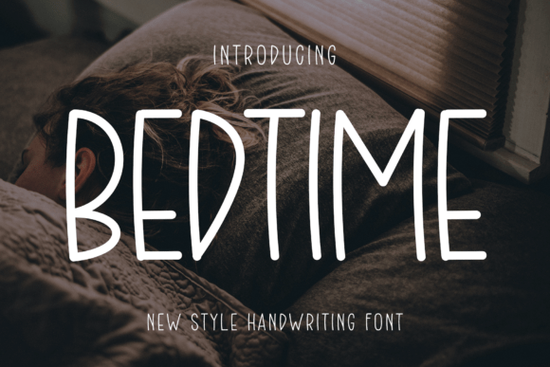
How do you choose a script font that looks elegant but remains readable across different projects? For designers and small business owners working on wedding stationery, branding, or lifestyle content, Bedtime Font offers a practical balance between sophistication and legibility. This fluid handwritten typeface brings a modern, refined look that works well for everything from luxury invitations to photography overlays.
What kind of projects work best with this font?
Bedtime Font really shines in projects where you want a refined, handcrafted feel. Think wedding invitations, save-the-date cards, thank-you notes, and other stationery items where elegance matters. It also works well for:
- Branding for boutique businesses, especially in beauty, fashion, or lifestyle niches
- Social media graphics like quote posts or highlight covers where you want a personal, human touch
- Product packaging for handmade or artisanal goods
- Photography overlays for engagement shoots, weddings, or maternity sessions
- Logos and wordmarks for businesses that want a sophisticated handwritten look
The font has a natural rhythm and consistent stroke width, so it remains legible even in shorter paragraphs or when combined with other design elements. That makes it more versatile than many script fonts that only work as display text at large sizes.
How does Bedtime Font compare to other script fonts?
There are plenty of script fonts out there, but Bedtime Font stands out for its balance of elegance and readability. Some script fonts lean heavily into decorative flourishes that make them hard to read in smaller sizes. Bedtime Font keeps its refined look while staying clear and usable.
What should you consider before buying Bedtime Font?
Before purchasing any script font, think about your typical project needs. Bedtime Font works best when your designs call for an elegant, feminine, or romantic feel. If your work leans more toward modern minimalism or bold display typography, you might need to pair it with a clean sans-serif or serif font for contrast.
What font pairings work well with Bedtime Font?
Pairing a script font with the right counterpart can make a design look cohesive or disjointed. Bedtime Font works beautifully with simple serif typefaces like Garamond or Playfair Display for a classic, elegant combination. For a more modern contrast, try pairing it with clean sans-serif fonts like Montserrat or Lato. Let Bedtime Font take the lead in headings and let the companion font handle body text.
For branding projects, stick to one script font and one complementary typeface to keep your designs clean. Using too many script fonts in one project can make the layout feel busy and harder to read.
A quick practical tip for using Bedtime Font
Before you finalize any design with Bedtime Font, test it at the actual size it will be used. What looks elegant at 72 points can lose its readability at 12 points. Print a test sample if possible, or view it on the actual device your audience will use. This simple step can save you from costly reprints or redesigns later.